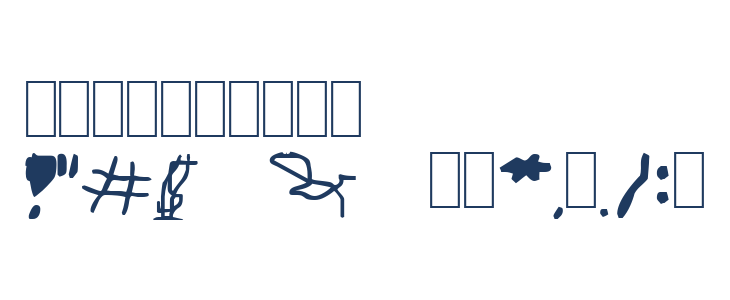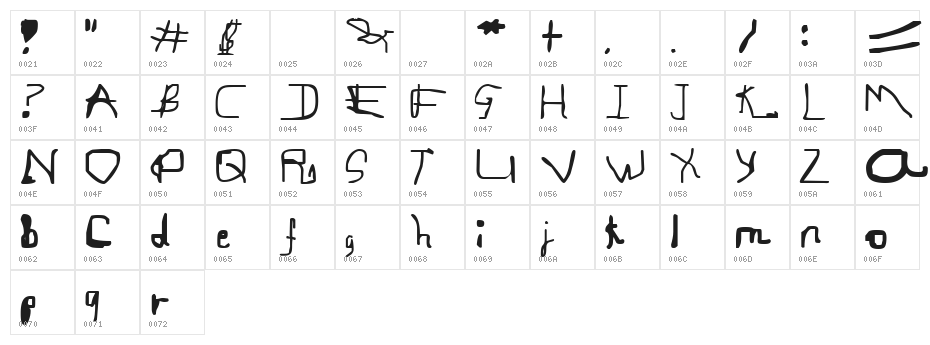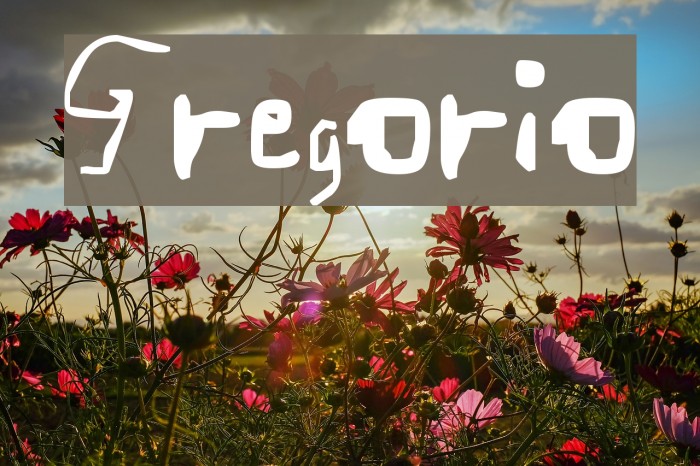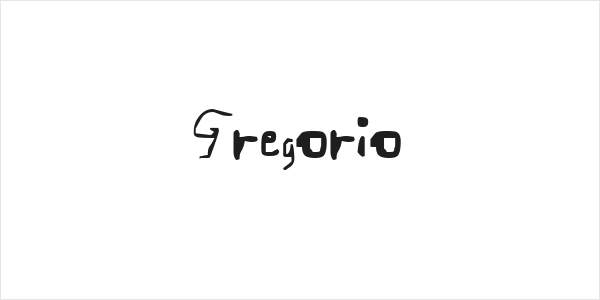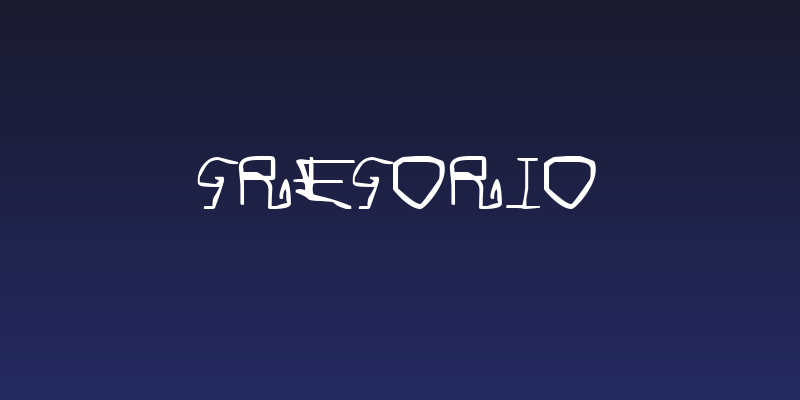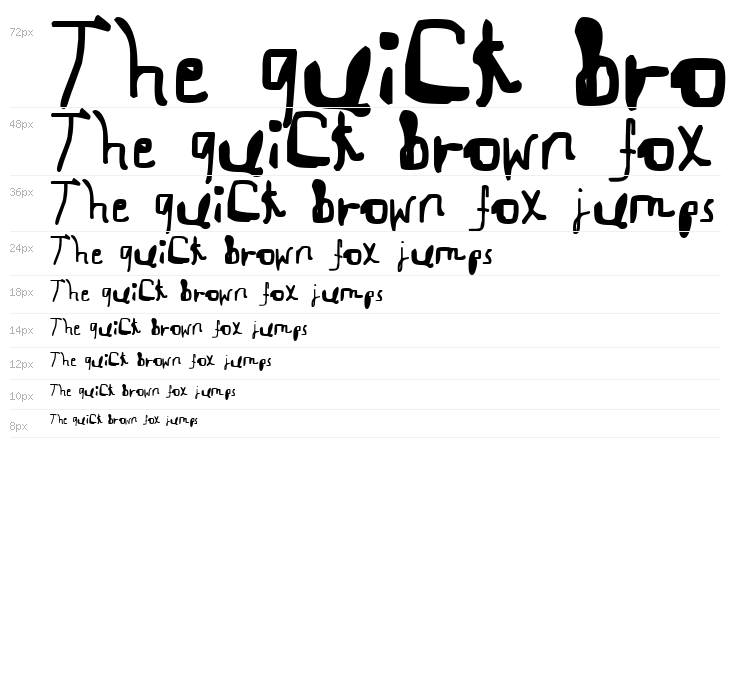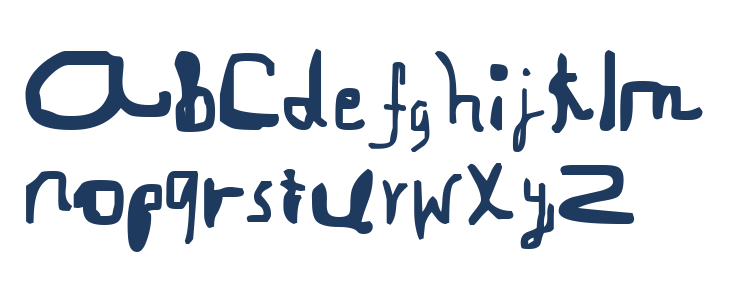
Gregorio Font
Gregorio Description
This font features a highly decorative and artistic style, characterized by its irregular and playful letterforms. The uppercase letters have a whimsical, almost hand-drawn quality, with varying stroke widths and unique shapes that give each character a distinct personality. The lowercase letters continue this theme, with some characters exhibiting exaggerated curves and loops. The numbers and special characters maintain the same artistic flair, making the font suitable for creative and unconventional projects. The overall design is bold and expressive, capturing attention with its dynamic and lively appearance.